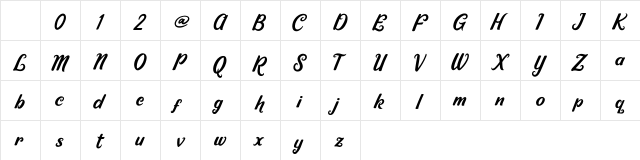
Complete Ricky Lhambert demo glyph index. Displaying only characters natively supported by Ricky Lhambert demo font.
Ricky Lhambert demo is a composed and adaptable typeface that performs quietly and consistently across a wide range of design contexts.